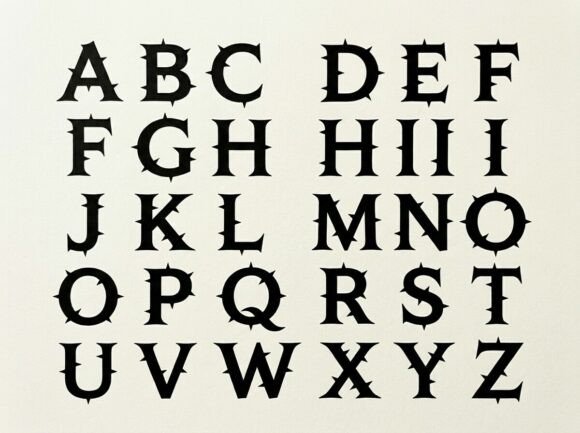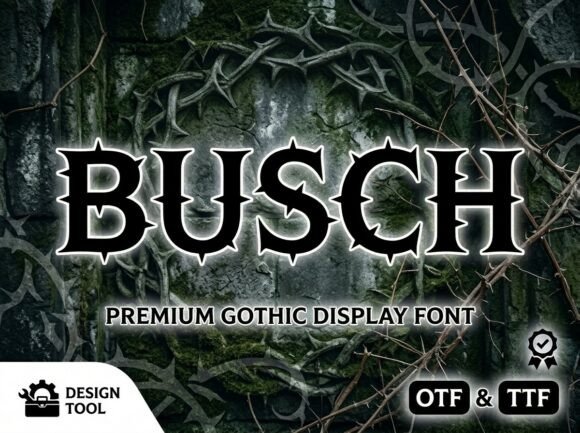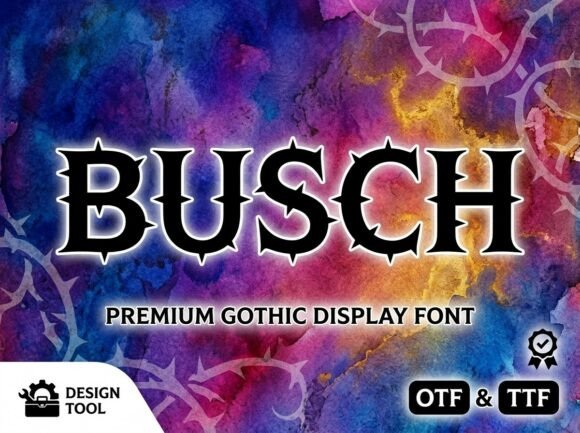
Unleash the Darkness: Discover the Busch Font
In the realm of typography, few fonts evoke the essence of mystery and intimidation as Busch does. This sharp display serif is not just a font; it’s an experience, a journey into the darker corners of design. With its unique blend of gothic metal aesthetics and modern dark-fantasy branding, Busch is the perfect choice for those who dare to embrace the dark side.
The Character of Busch
Busch’s character is defined by its sturdy, high-contrast letterforms, which exude a sense of strength and resilience. The rhythmic, thorn-like spurs and aggressive serifs give the font a distinctive edge, setting it apart from more conventional typefaces. This is not a font for the faint of heart; it’s for those who want to make a statement, to leave an indelible mark on their audience.
Bridging Eras: Gothic Metal and Modern Dark-Fantasy
Busch seamlessly bridges the gap between gothic metal aesthetics and modern dark-fantasy branding. For those who appreciate the raw energy of metal music or the allure of dark fantasy, this font provides a typographic solution that resonates with their aesthetic. Whether you’re designing a logo for a metal band, creating a label for an artisan spirit, or crafting a social media header that demands attention, Busch is the ideal choice.
Applications of Busch
The versatility of Busch is one of its most compelling attributes. Here are a few ways this powerful font can be utilized:
- Independent Artisan Spirit Labels: Add a touch of the mysterious and unknown to your craft spirits with labels that command attention and inspire curiosity.
- Boutique Occult-Themed Logos: Create a brand identity that stands out in the mystical and occult community with a logo that’s both intriguing and powerful.
- Metal Band Posters: Promote your next metal concert or album release with posters that scream energy and intensity, thanks to the bold presence of Busch.
- High-Impact Social Media Headers: Elevate your social media presence with headers that capture the essence of the dark and gritty, perfect for dark fantasy, gothic, or metal influencers and brands.
Why Choose Busch?
Choosing Busch for your design project means selecting a font that is more than just a typographic choice; it’s a statement of intent. This font embodies an intimidating personality and a heavy structural weight that few can match. In a world where design trends come and go, Busch offers a timeless appeal that speaks to those who are not afraid to stand out from the crowd.
Embracing the Dark Side of Design
Design is about making choices, and the choice to use Busch is a bold one. It’s for designers and crafters who are not afraid to push boundaries and explore the darker aspects of creativity. With Busch, you’re not just designing; you’re creating an experience, evoking emotions, and building a connection with your audience on a deeper level.
Busch is more than just a font; it’s a gateway to a world of dark beauty and design depth. For those ready to embrace the shadows and create something that truly stands out, Busch is the premier choice. Whether you’re a seasoned designer or an artisan looking to make your mark, this sharp display serif offers the perfect blend of gothic metal aesthetics and modern dark-fantasy branding. So, dare to be different, dare to be bold, and let Busch guide you into the darker side of design.